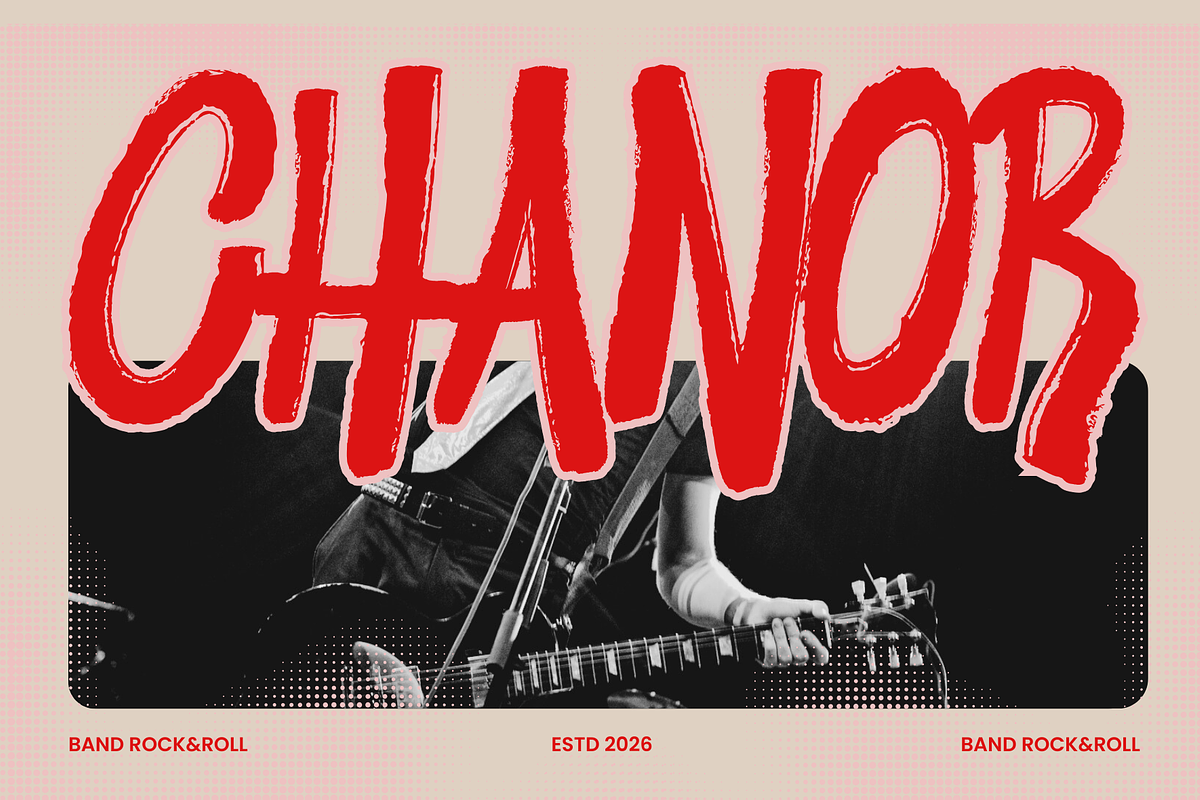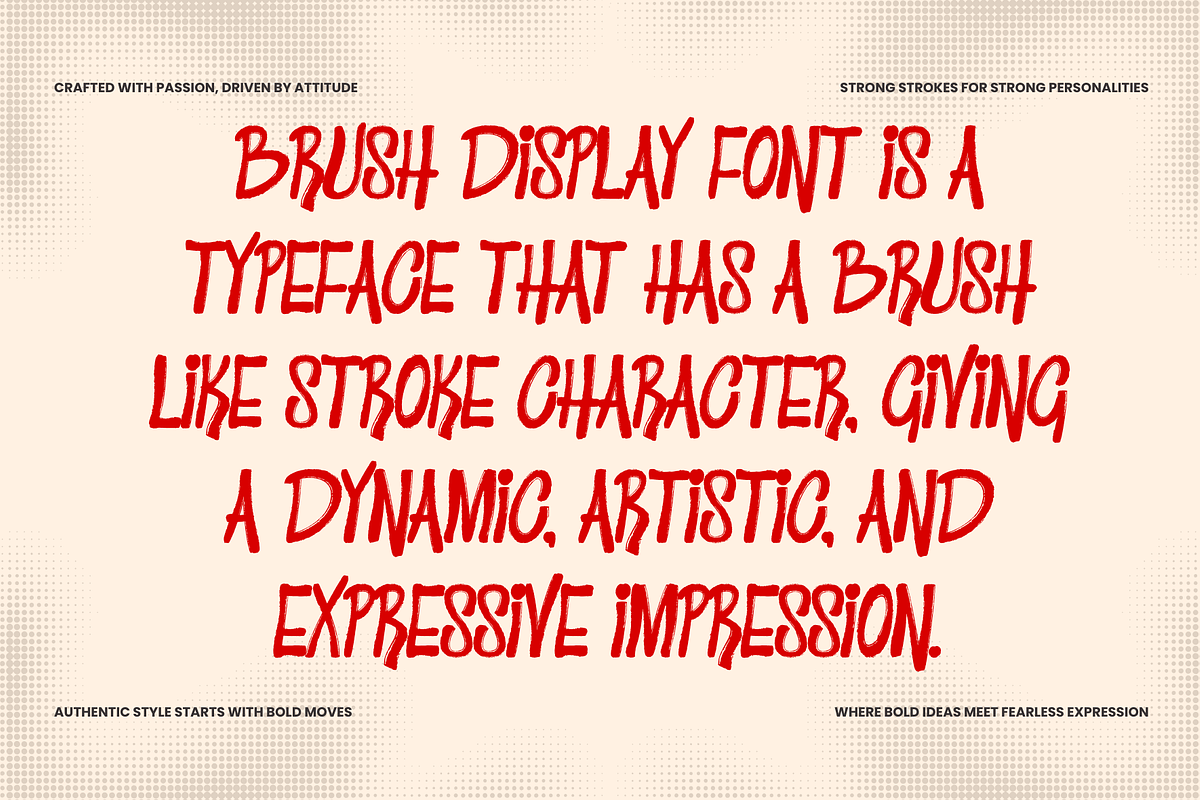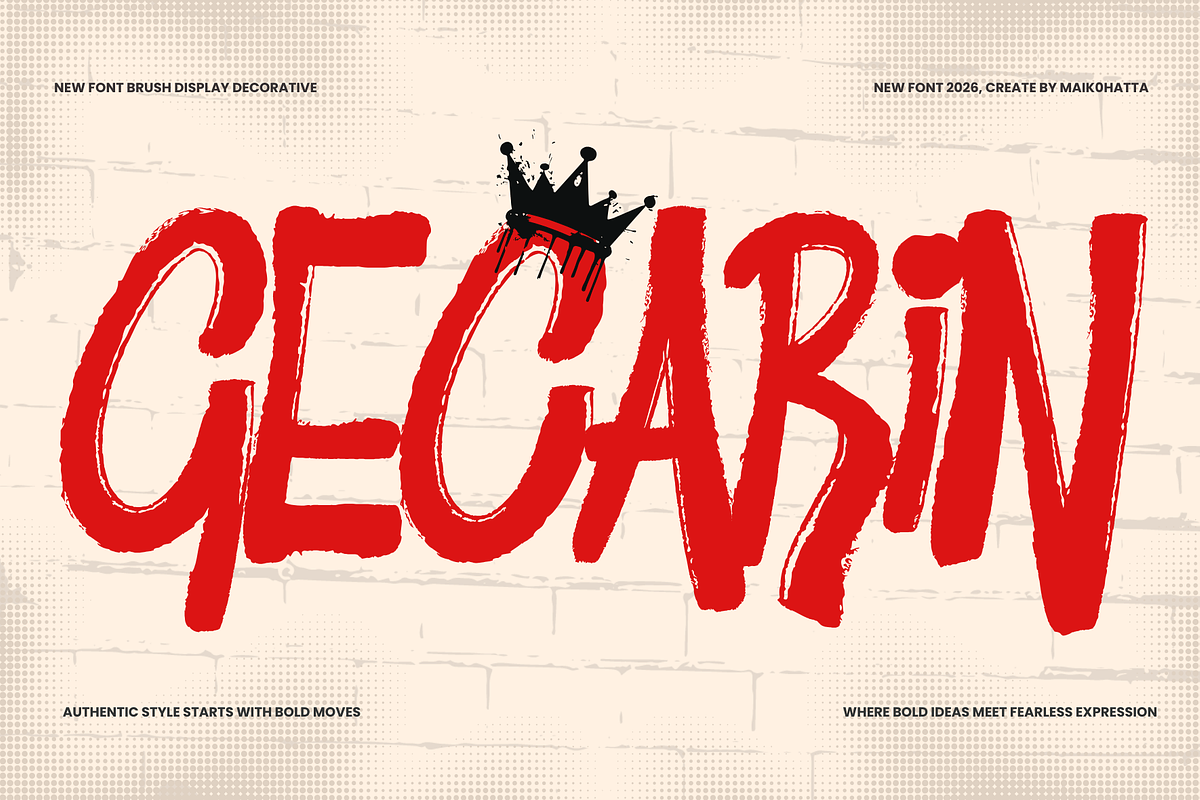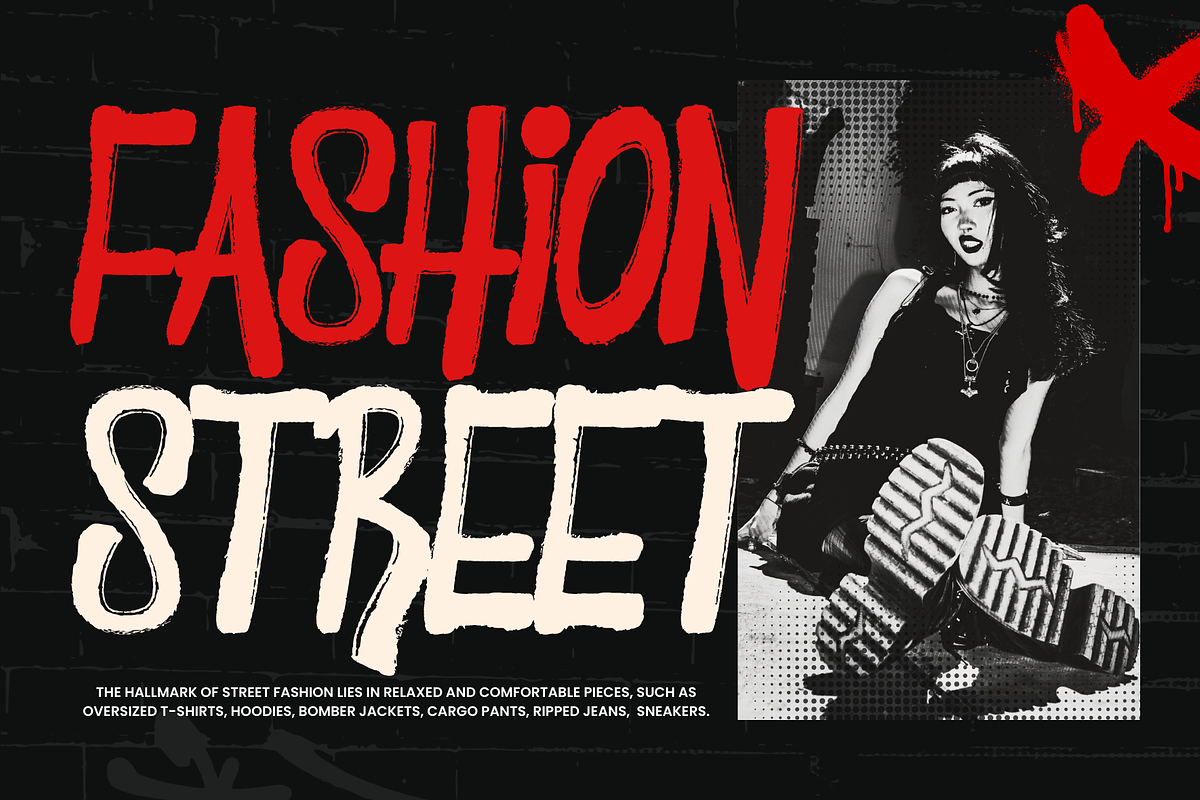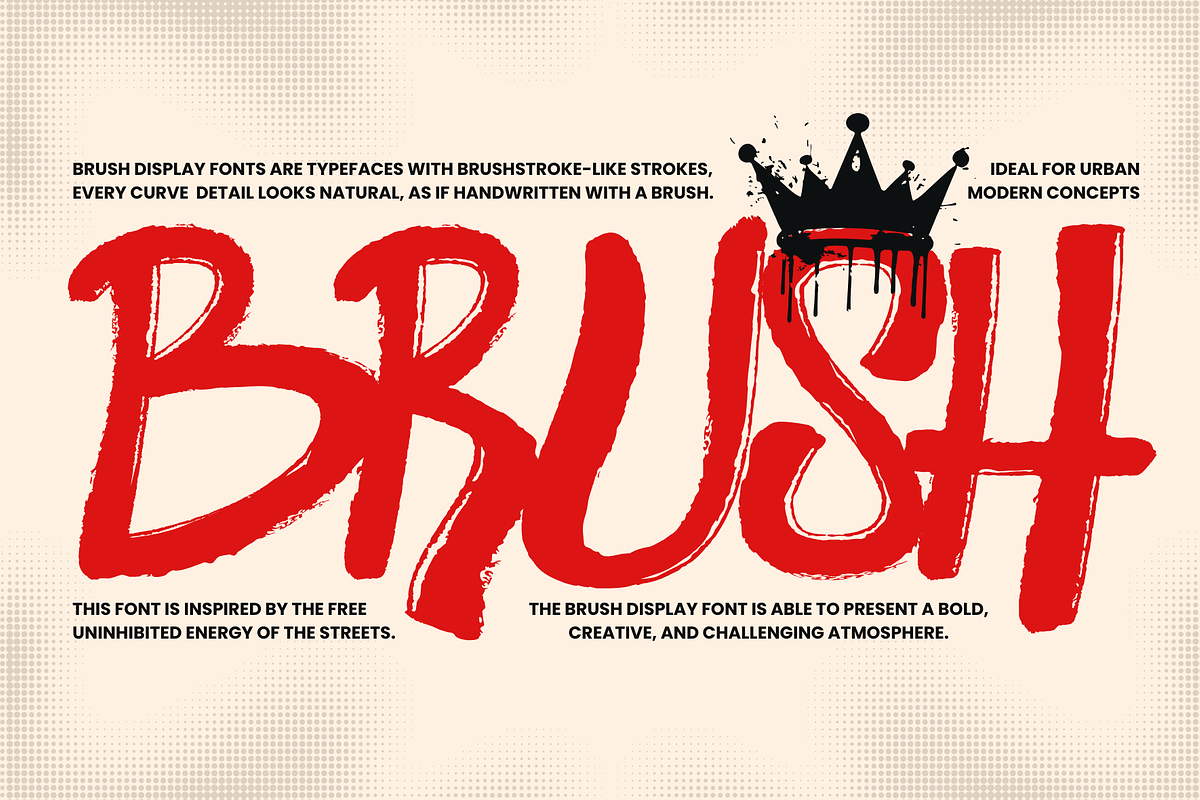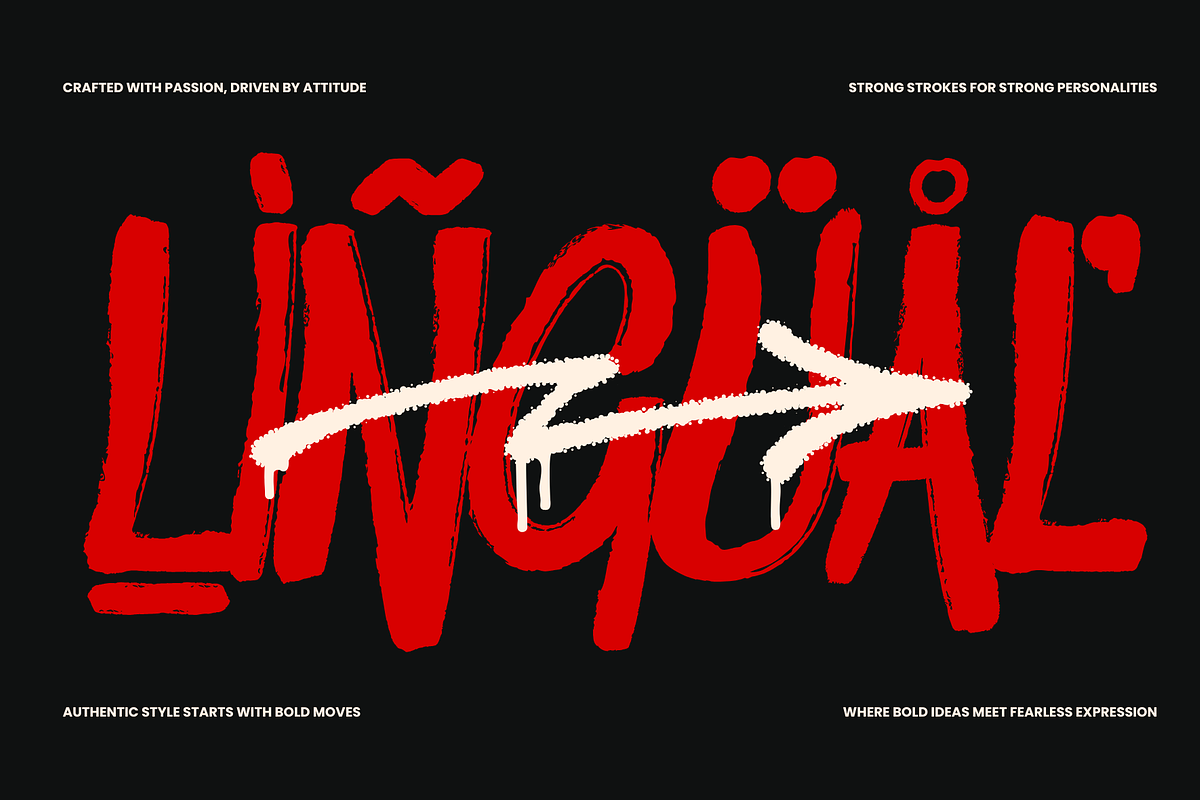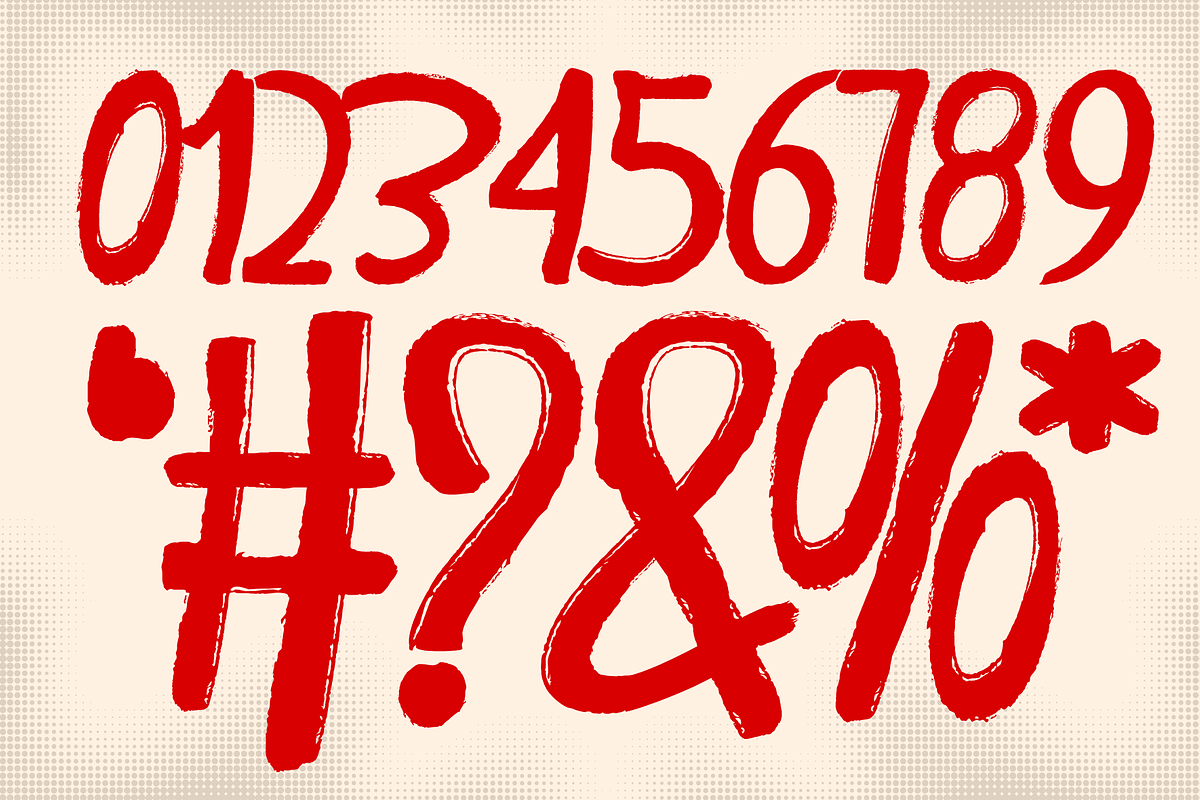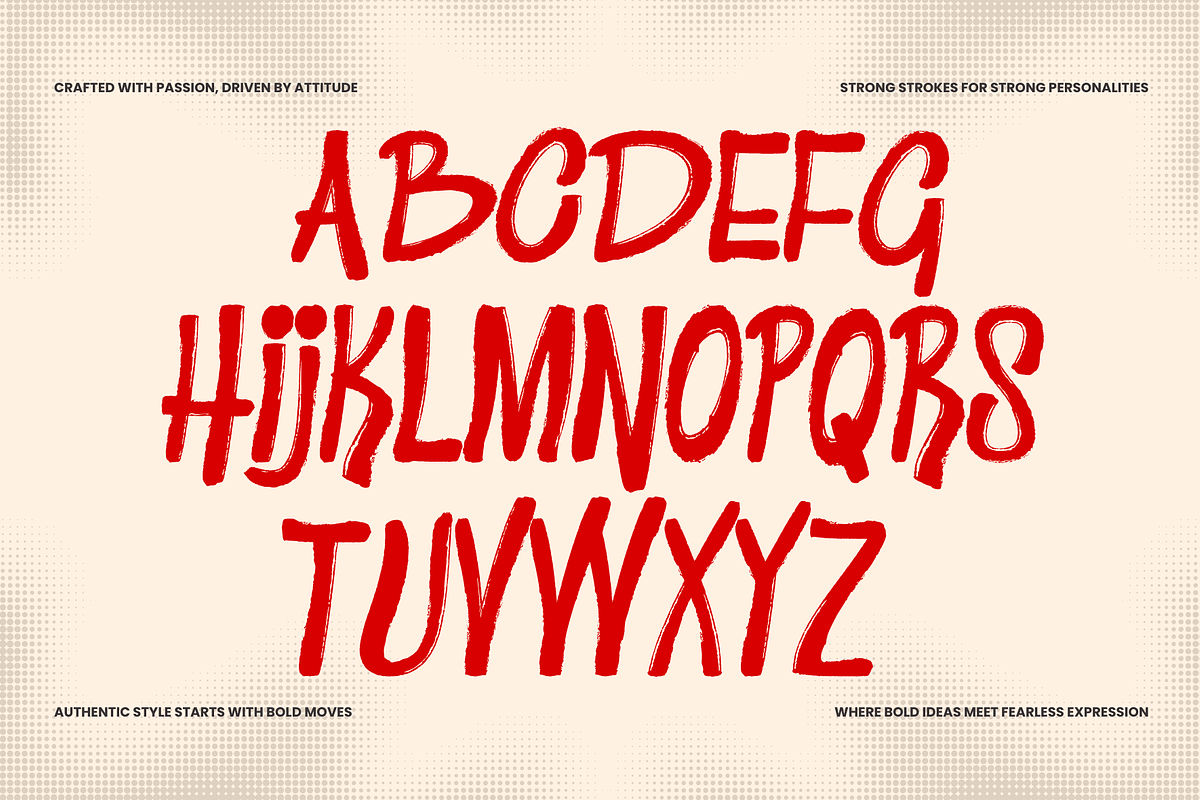
Gecarin – Bold Brush Display Font
Introducing our new product Gecarin – Bold Brush Display Font
Gecarin is a bold and expressive brush display font designed to deliver powerful visual impact. Featuring dynamic strokes and authentic hand-painted textures, this typeface captures the raw energy of urban art and fearless creativity. Every curve feels natural and spontaneous, as if written directly with a brush, giving your designs a strong, personal, and artistic character.
Perfect for posters, branding, streetwear designs, album covers, social media graphics, headlines, packaging, quotes, and bold editorial layouts. Its rough edges and energetic flow make it ideal for projects that demand attention and attitude.
Whether you're creating modern urban visuals or expressive artistic compositions, Gecarin brings strength, motion, and personality to every word.